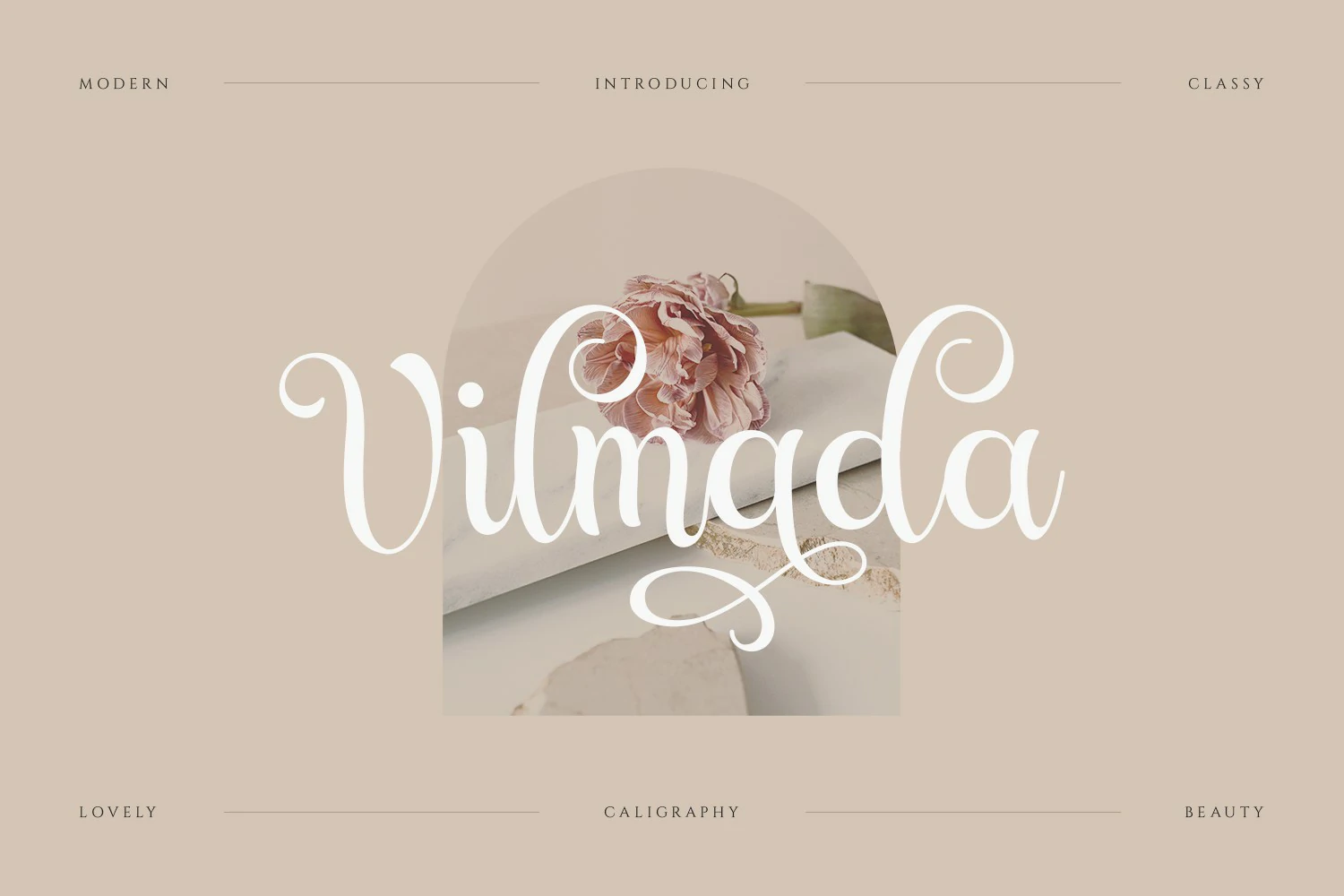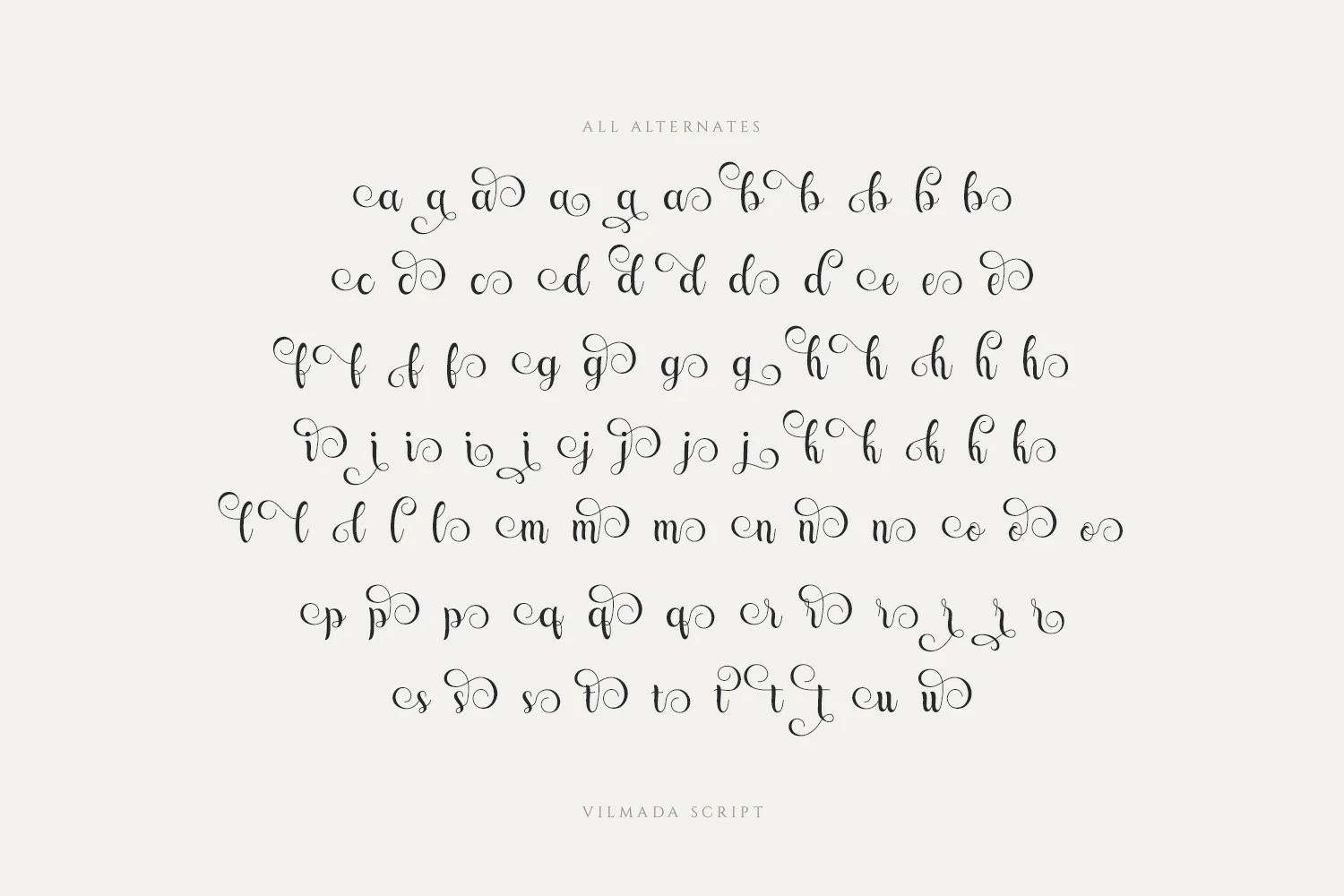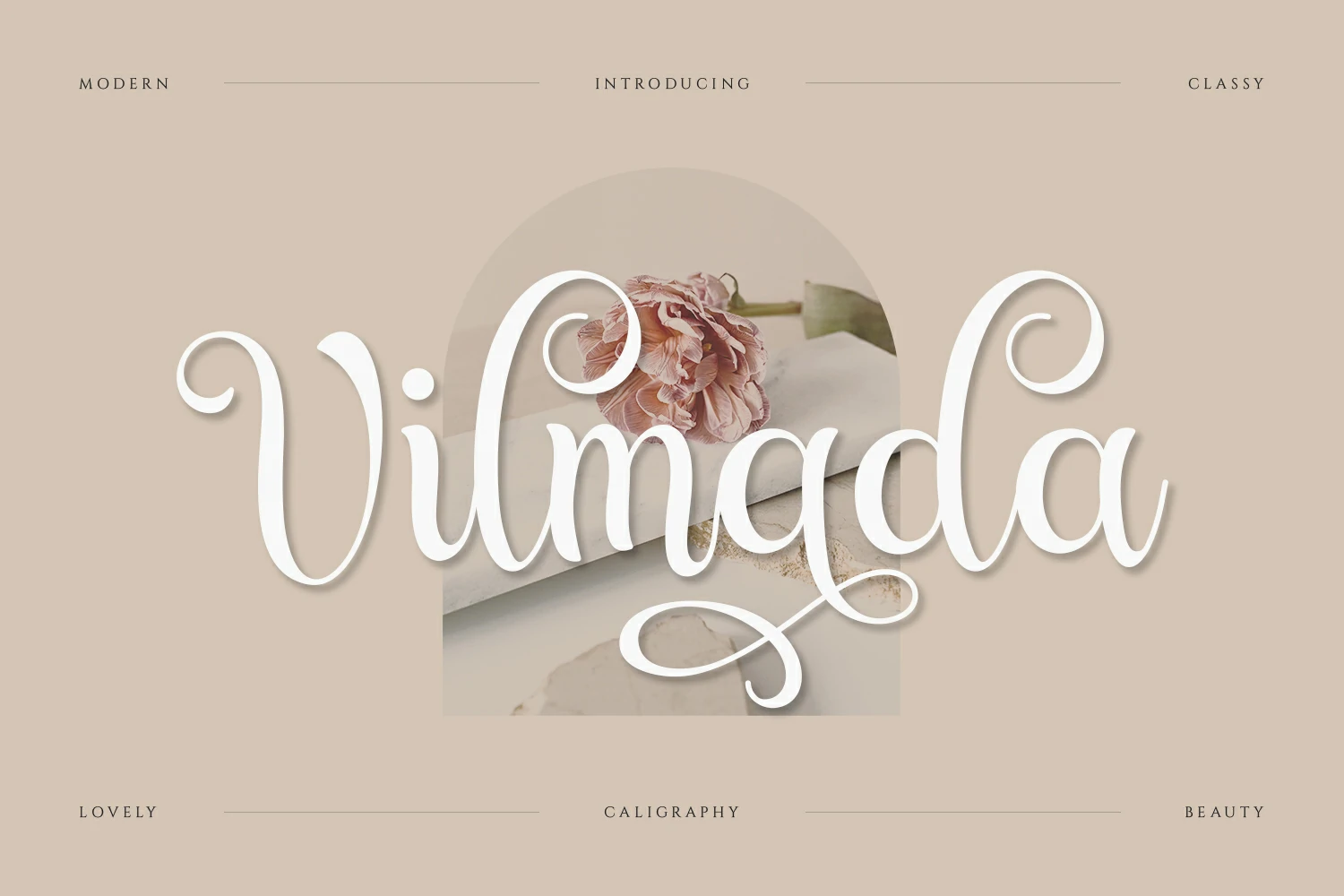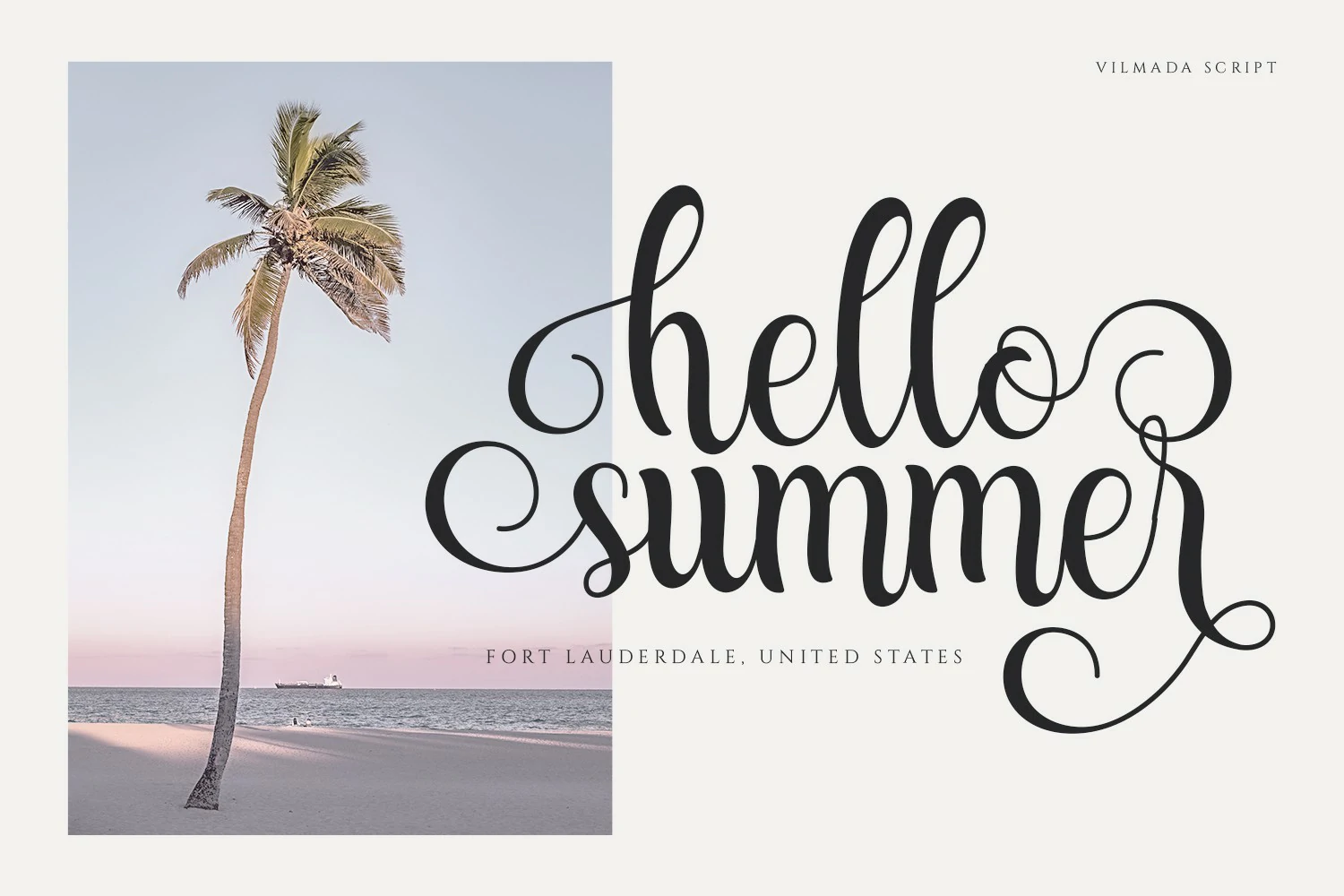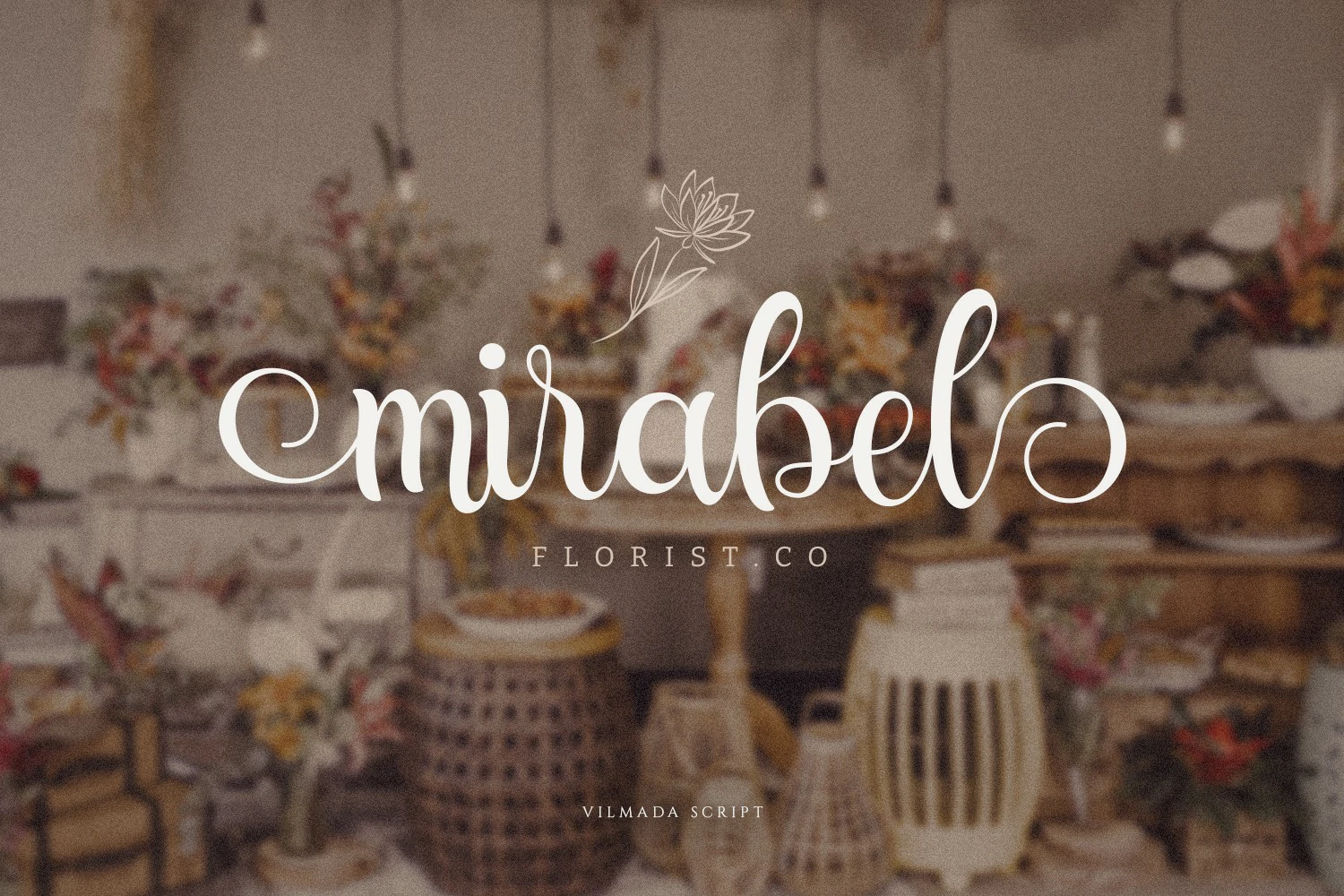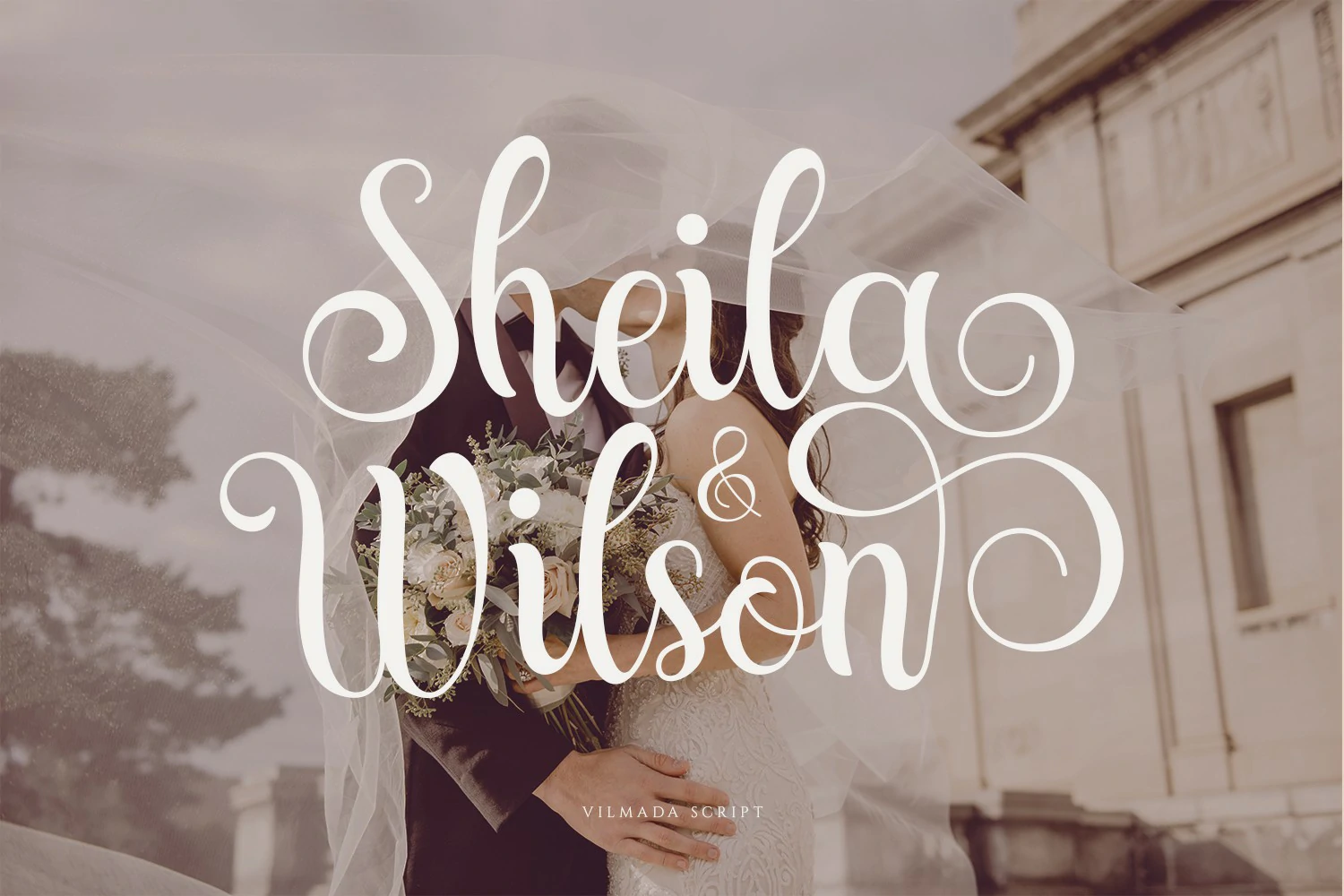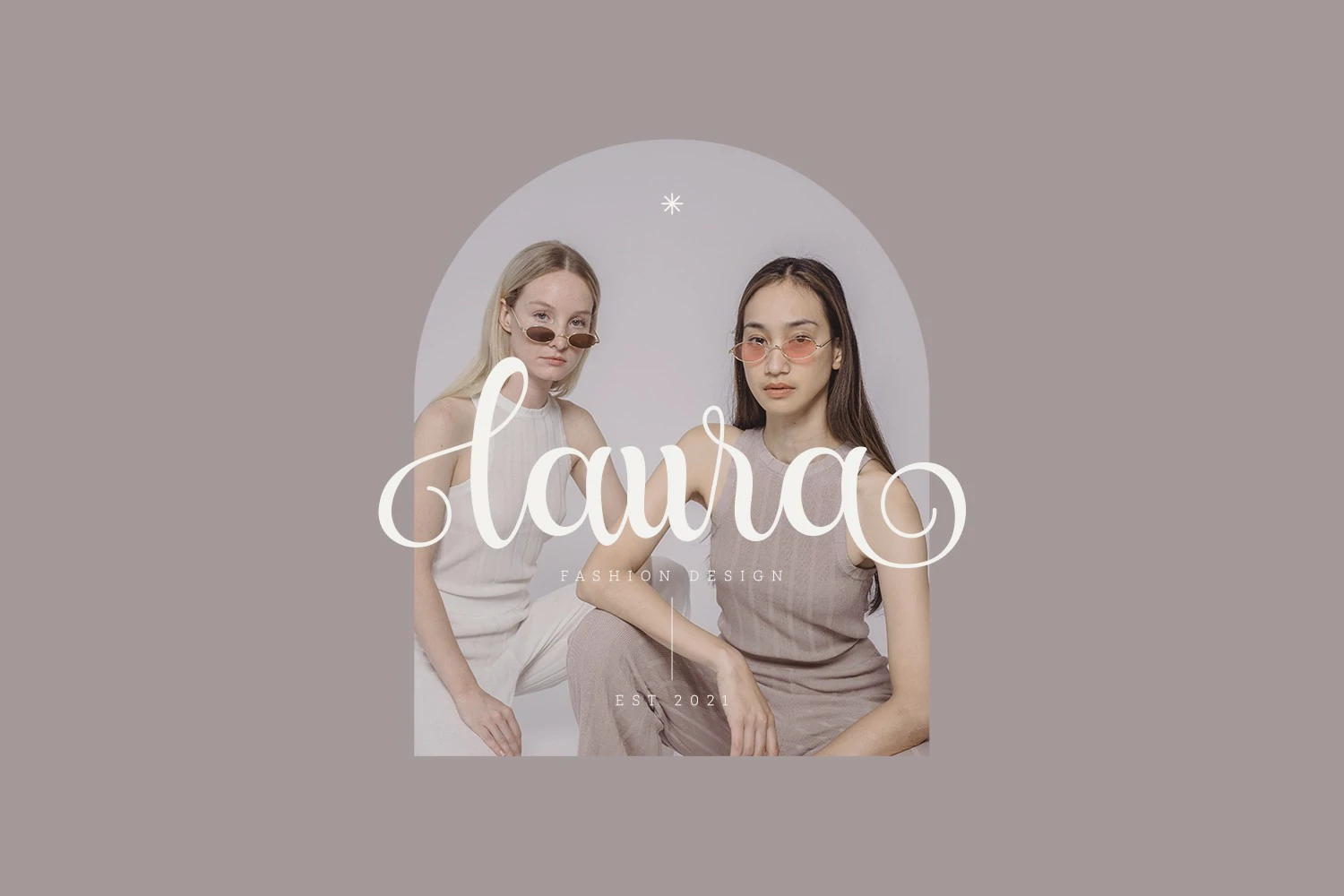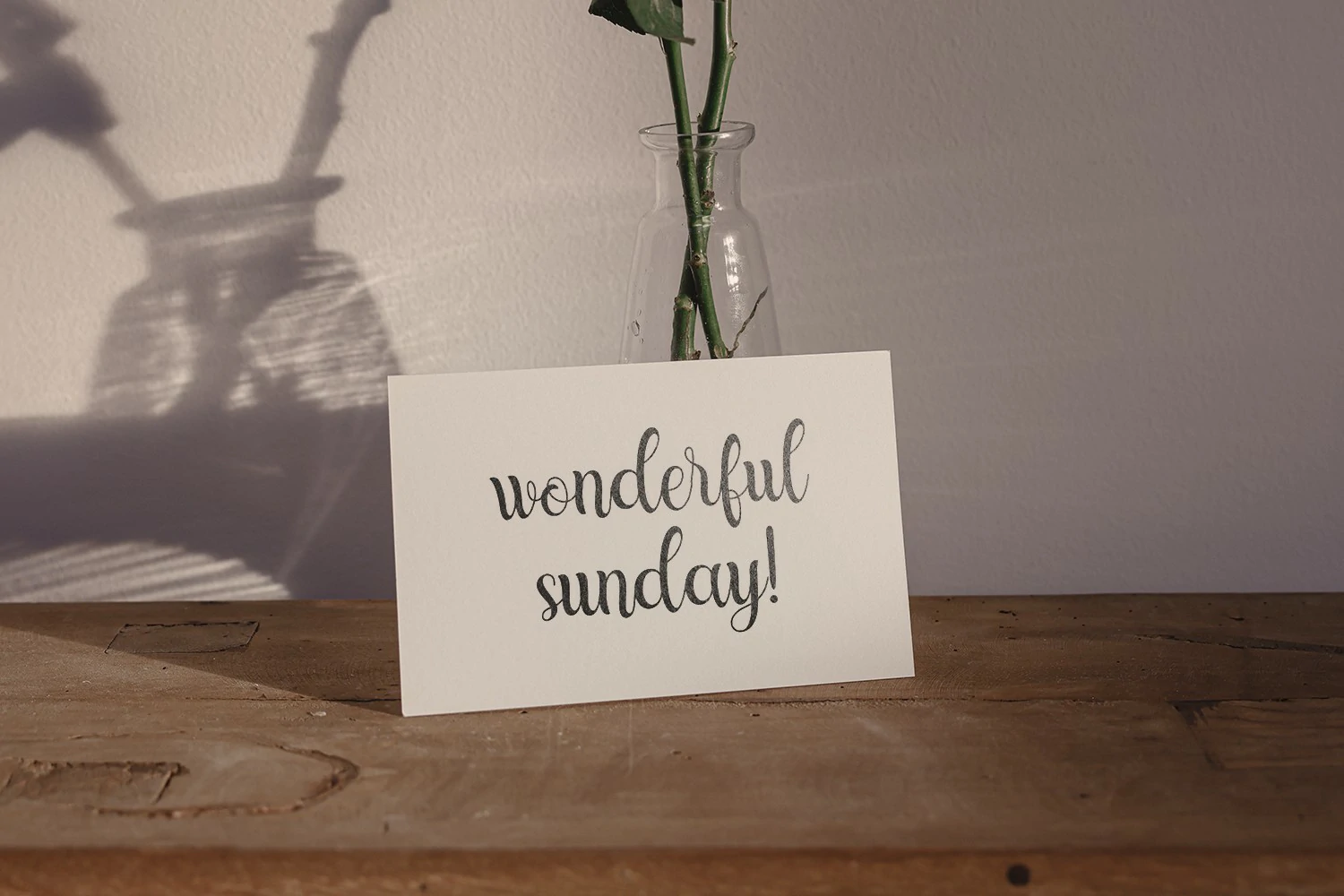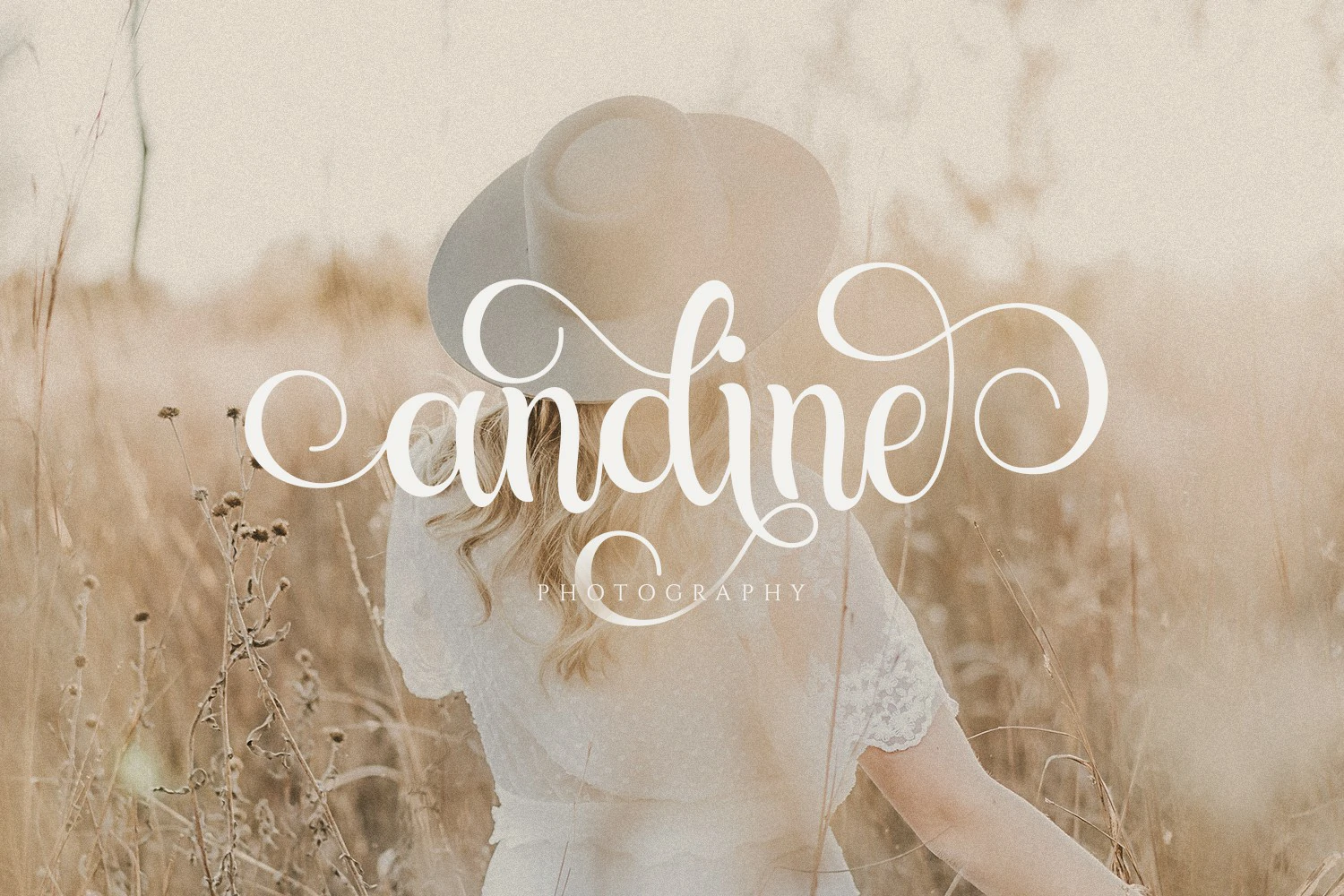
Vilmada Font
Vilmada Font is a modern calligraphy font with elegant strokes, ligatures, and alternates. Ideal for wedding designs, branding, and feminine projects.
Vilmada Font
Vilmada Font a graceful and modern calligraphy script font that exudes elegance, romance, and charm. Designed with a touch of classic handwritten beauty and a contemporary twist, Vilmada is perfect for creating designs that feel personal, artistic, and full of personality.
Vilmada is a modern calligraphy font that balances the authenticity of handwriting with the sophistication of digital precision. The strokes are soft and flowing, with beautiful curves, stylish loops, and smooth transitions that mimic real penmanship. Every glyph is thoughtfully crafted, giving your designs an organic and refined look.
This font is loaded with ligatures and alternates, providing endless combinations that keep your typography fresh and unique. From swirling letter tails to elegant swashes, Vilmada’s alternate characters offer versatility for logos, invitations, greeting cards, and branding projects.
Vilmada Font includes uppercase and lowercase characters, numerals, punctuation, and an extensive set of ligatures and stylistic alternates. Whether you’re designing wedding stationery or branding a boutique, this font provides the flexibility and flair needed to make every word feel like a signature.
✨Vilmada Font Key Features:
• Modern calligraphy style
• Full set of uppercase and lowercase letters
• Numbers and punctuation
• Extensive alternates and standard ligatures
• Multilingual support
💖 Why Choose Vilmada Font?
🌸 Perfect for Wedding Design
Looking for the ideal wedding font? Vilmada is a romantic script with flowing letters that enhance save-the-date cards, invitations, menus, and place settings.
🌿 Handwritten Script for Branding
Build a soft, feminine brand identity. Vilmada’s signature-style aesthetic makes it a great fit for beauty products, floral shops, fashion boutiques, and photography brands.
🖋️ Elegant Font for Quotes & Social Media
Make your quotes feel more emotional and heartfelt. Vilmada shines in Instagram posts, blog headers, and mood boards with its expressive curves and poetic rhythm.
🖼️ Font with Ligatures & Alternates
With dozens of ligatures and alternates, you can make every project feel custom-crafted. The swirls and loops of each alternate glyph add luxury and uniqueness.
💌 Card Design & Stationery
Use Vilmada for greeting cards, thank-you notes, baby showers, or Sunday morning calligraphy projects. It’s playful yet polished.
• Over 300+ glyphs
• A full set of uppercase & lowercase characters
• Alternates & ligatures
• Numerals & punctuation
• Multilingual support
Use Cases:
• Wedding invitations & stationery
• Feminine logo & branding
• Instagram quotes & captions
• Greeting cards & printable designs
• Photography watermarks
• Boutique packaging & labels
Whether you’re crafting a luxury logo or adding a charming touch to your latest project, Vilmada Font will bring grace and warmth to your work. Designed to elevate the ordinary into something emotionally captivating, Vilmada is a timeless handwritten script with a modern soul.